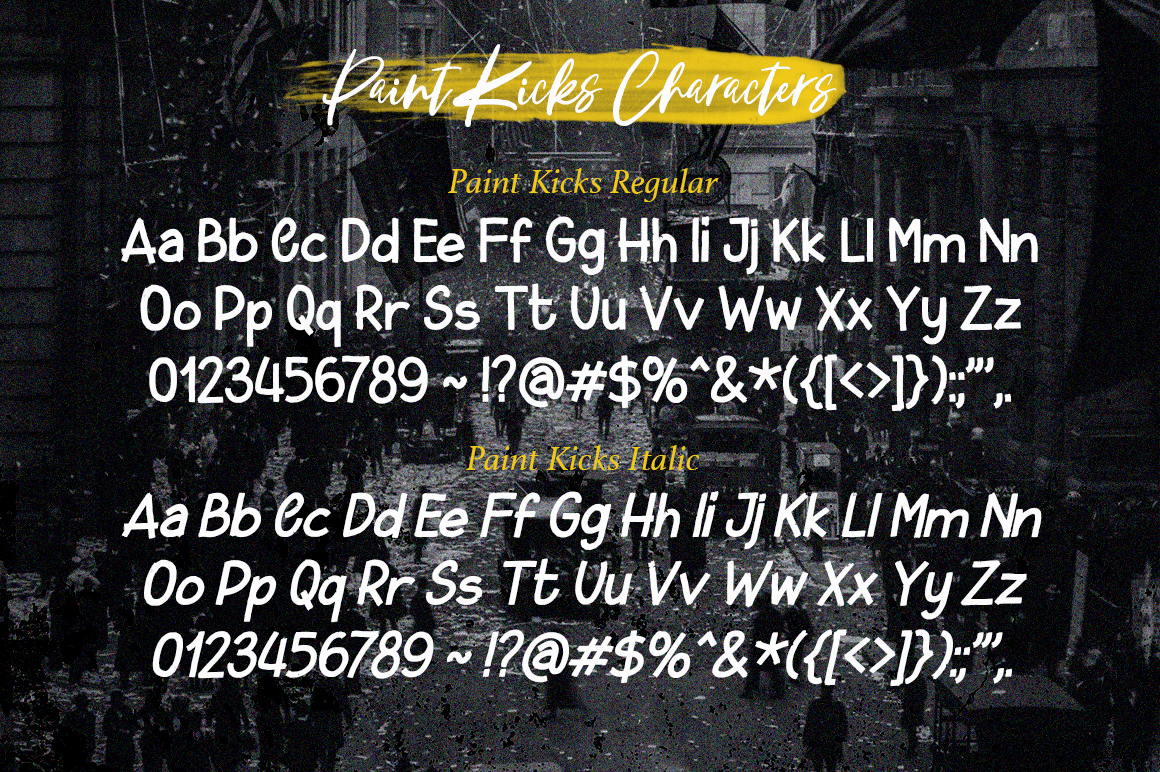
Paint Kicks
Paint Kicks is a family of handmade typeface, with a rugged paint style. The font carries the spirit of street culture, with its rough and attractive forms.